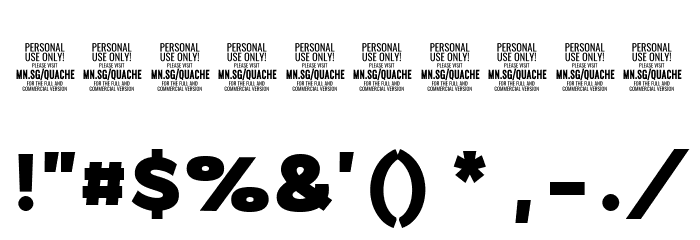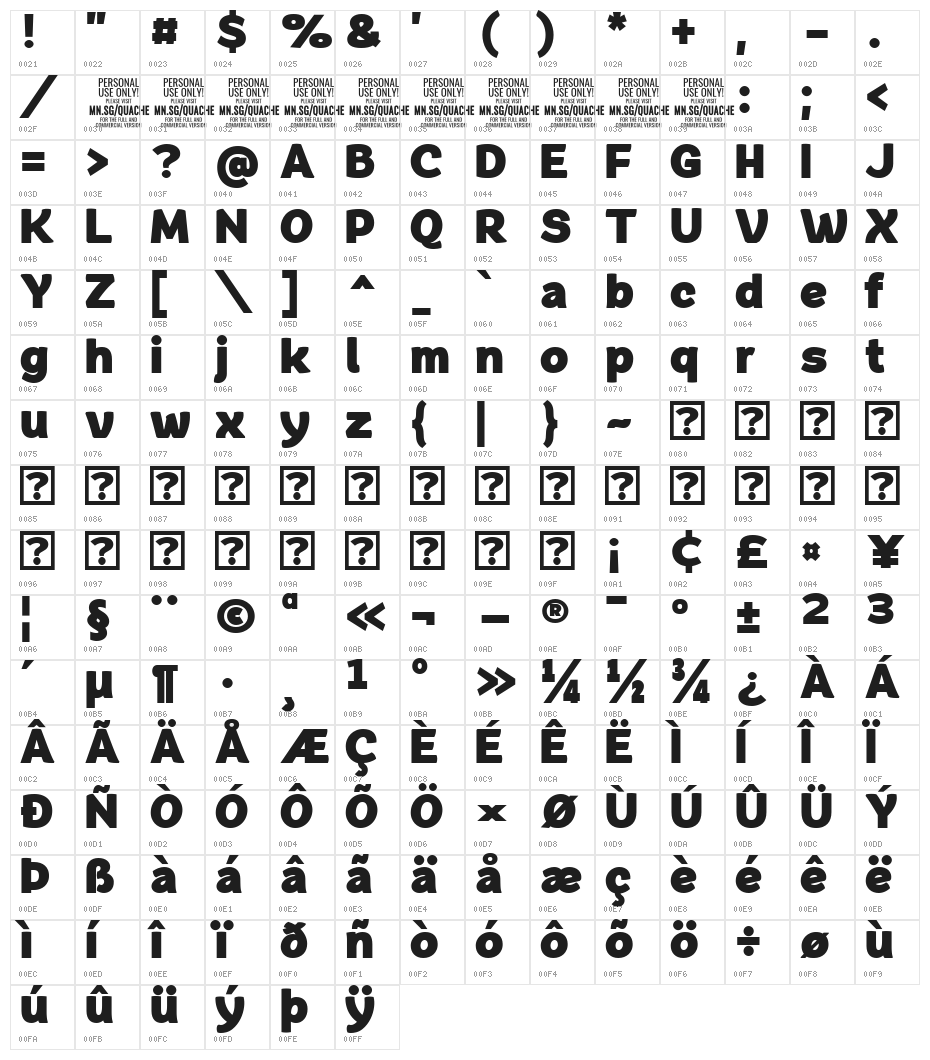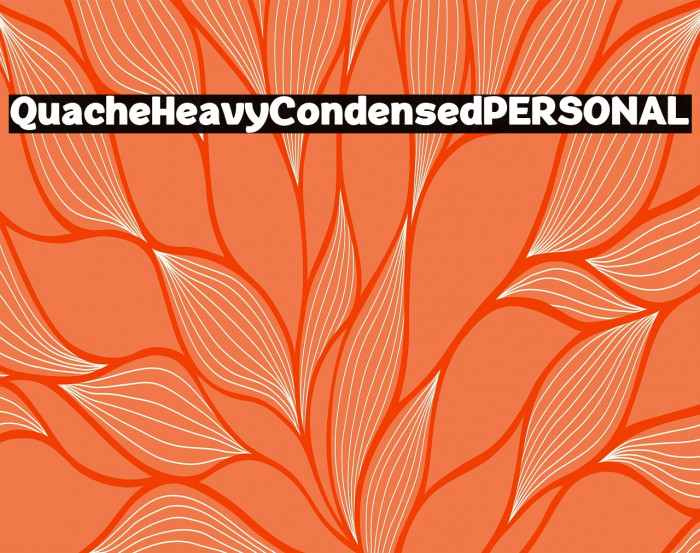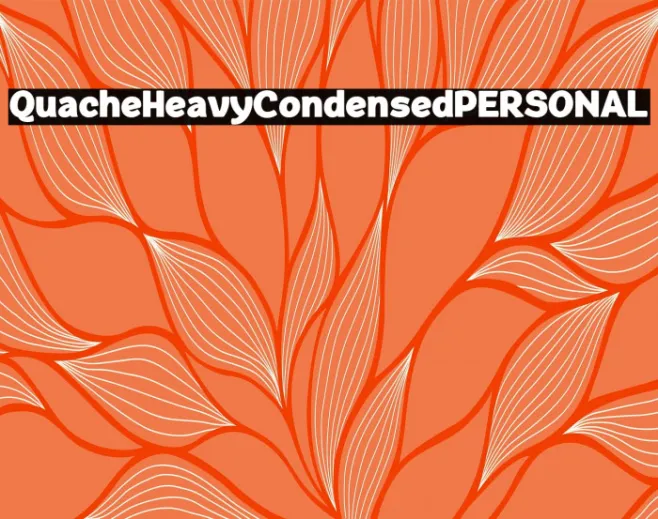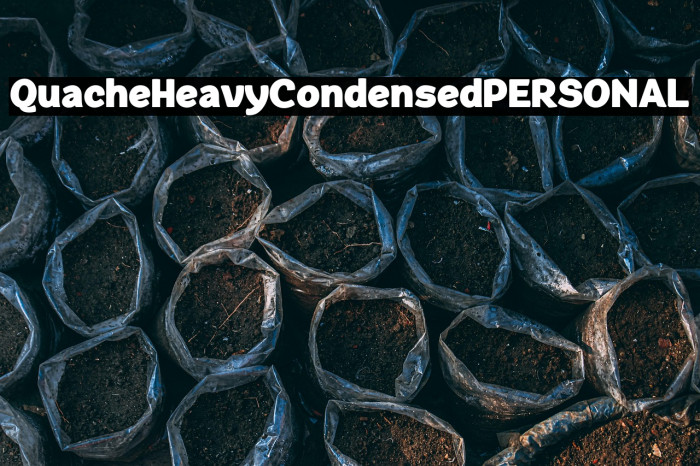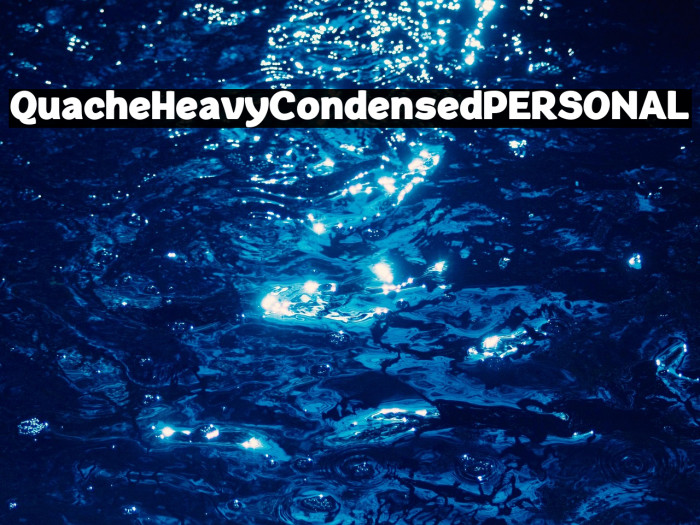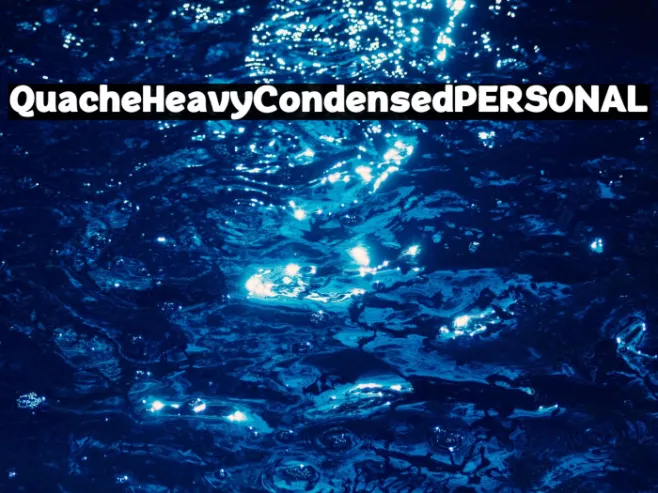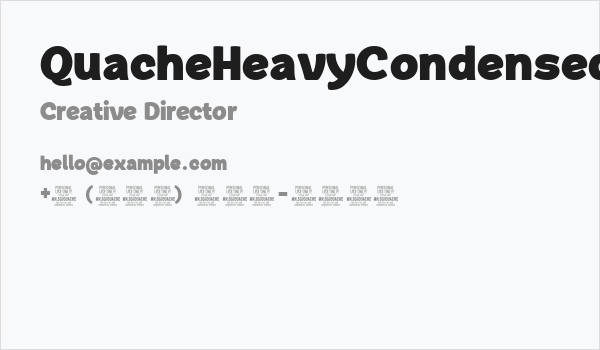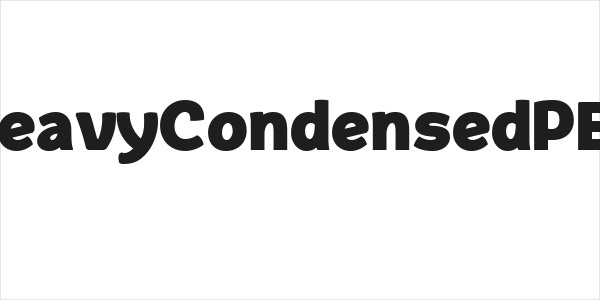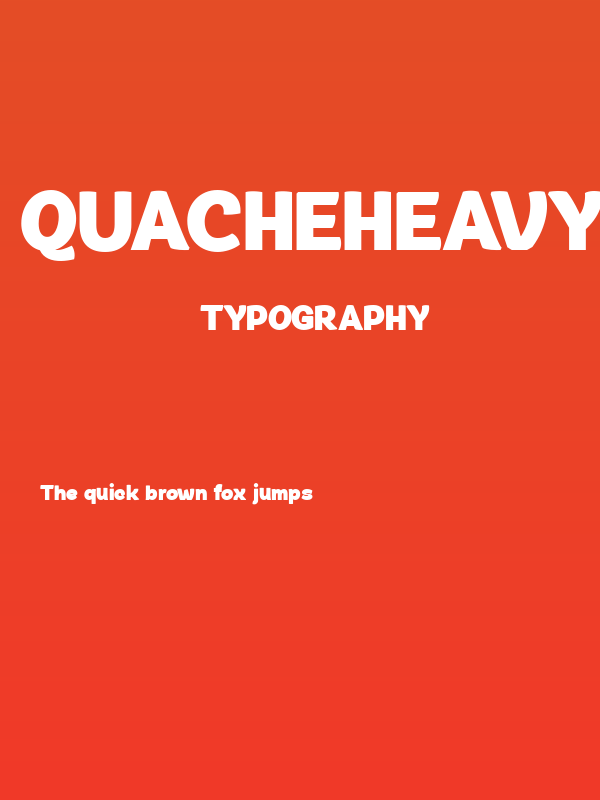
QuacheHeavyCondensedPERSONAL Font
QuacheHeavyCondensedPERSONAL Description
This font features a bold and condensed style, characterized by thick, uniform strokes that create a strong visual impact. The uppercase and lowercase letters maintain a consistent weight, enhancing readability while conveying a sense of modernity and strength. The characters are tightly spaced, contributing to its compact appearance, making it suitable for space-constrained designs. The font includes a full set of uppercase and lowercase letters, numerals, and a variety of special characters, providing versatility for different design needs. Its boldness and condensed nature make it ideal for headlines and attention-grabbing text.